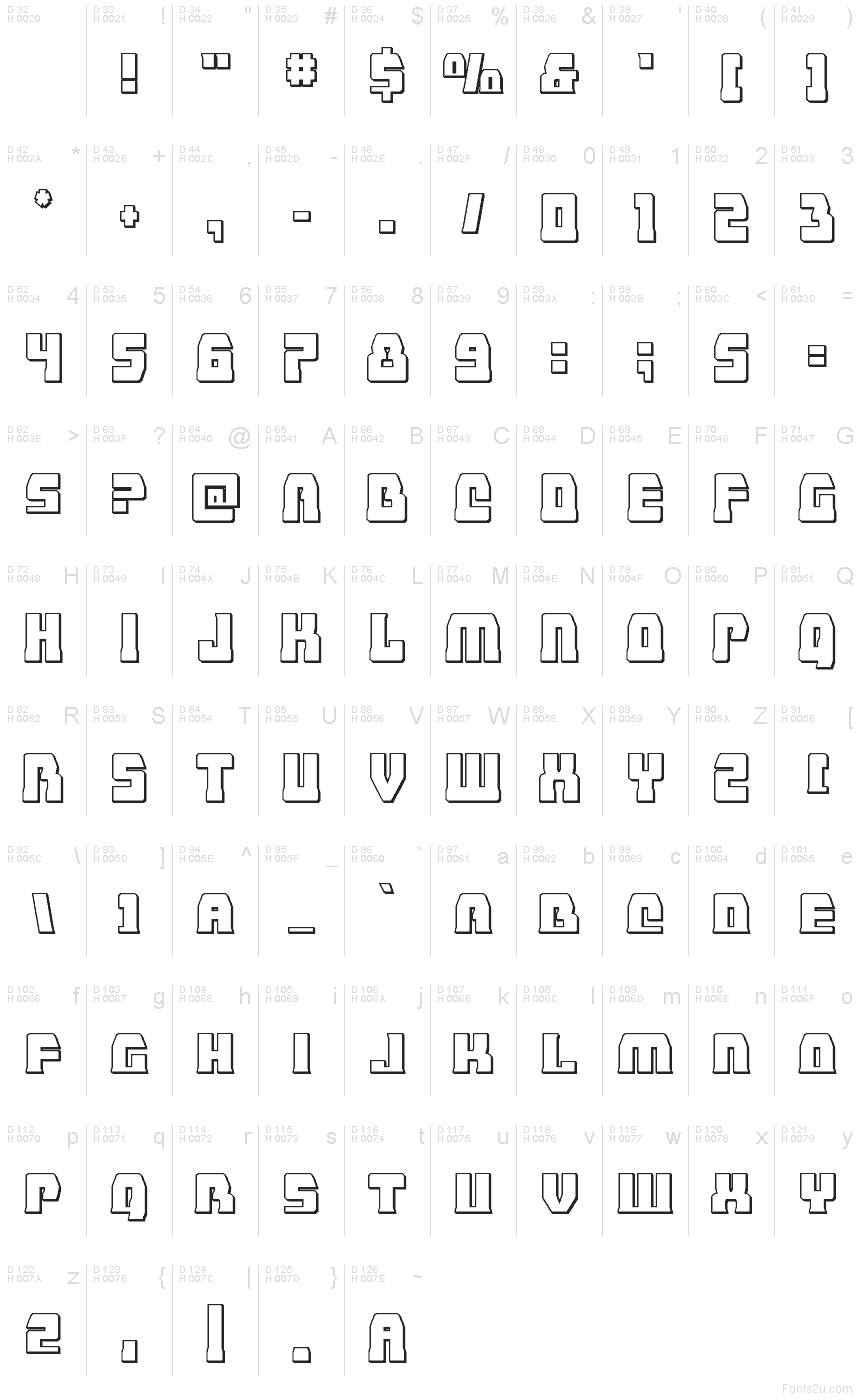
Librator 3D
Librator 3D font designed by Iconian Fonts is a free display expanded font that makes a good modern choice for designers. Its structured characters combine bold geometric styles with technology inspired shapes suitable in futuristic design projects. This style will definitely add an attractive element to your titles and logos catching all eyes.
The uniform Librator 3D can go into headlines, titles, posters, flyers, banners, mobile and web apps user interfaces and user experiences (UI / UX). Additional usage options target motion graphics, video games’ backgrounds or on-screen text… The strong style works at its best with large size printing publications targeting both children and adults.